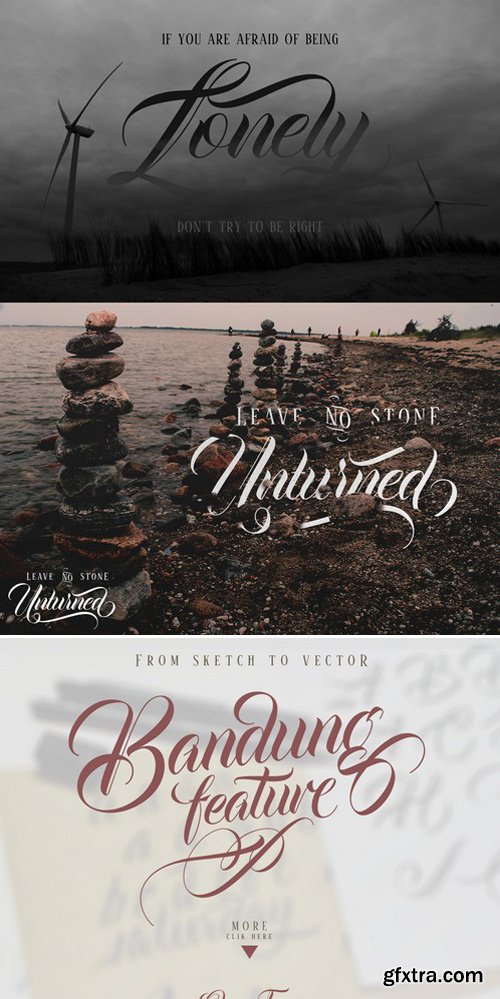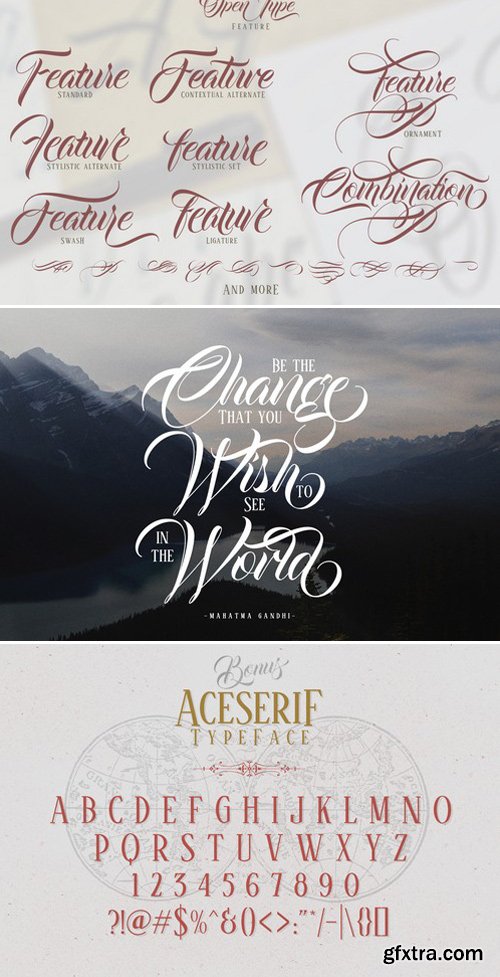
CM - Bandung + Aceserif 87664
- Bandung from Majestype was made to capture the natural movement of a brush script infused with the elegance of copperplate hand. With 6 months in the making, we want to make sure that the character set connects each other as natural and seamless as a handwriting would be. We give you a vast amounts of glyph options(400+) and will get update periodically, added with lots of swashes and flourishes to give you an authentic look of a hand made brush letters. This font is also looks very nice when combined with font "Aceserif" that we make as a bonus if you buy at this time. If you want to access all character, you need software that support OpenType Feature like Illustrator, indesign & CorelDraw. Bandung & Aceserif is suitable for tshirt design, photography, invitation, ID card, tattoo, poster, logo, title, branding and etc.